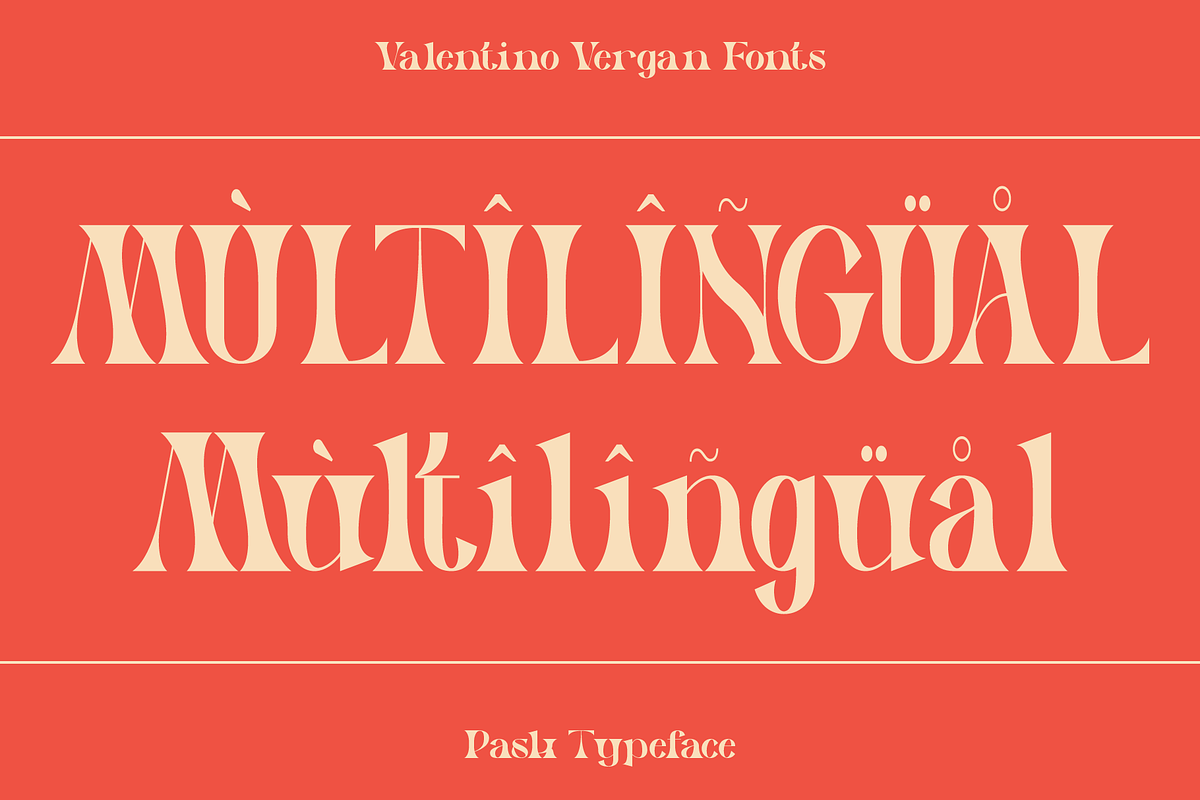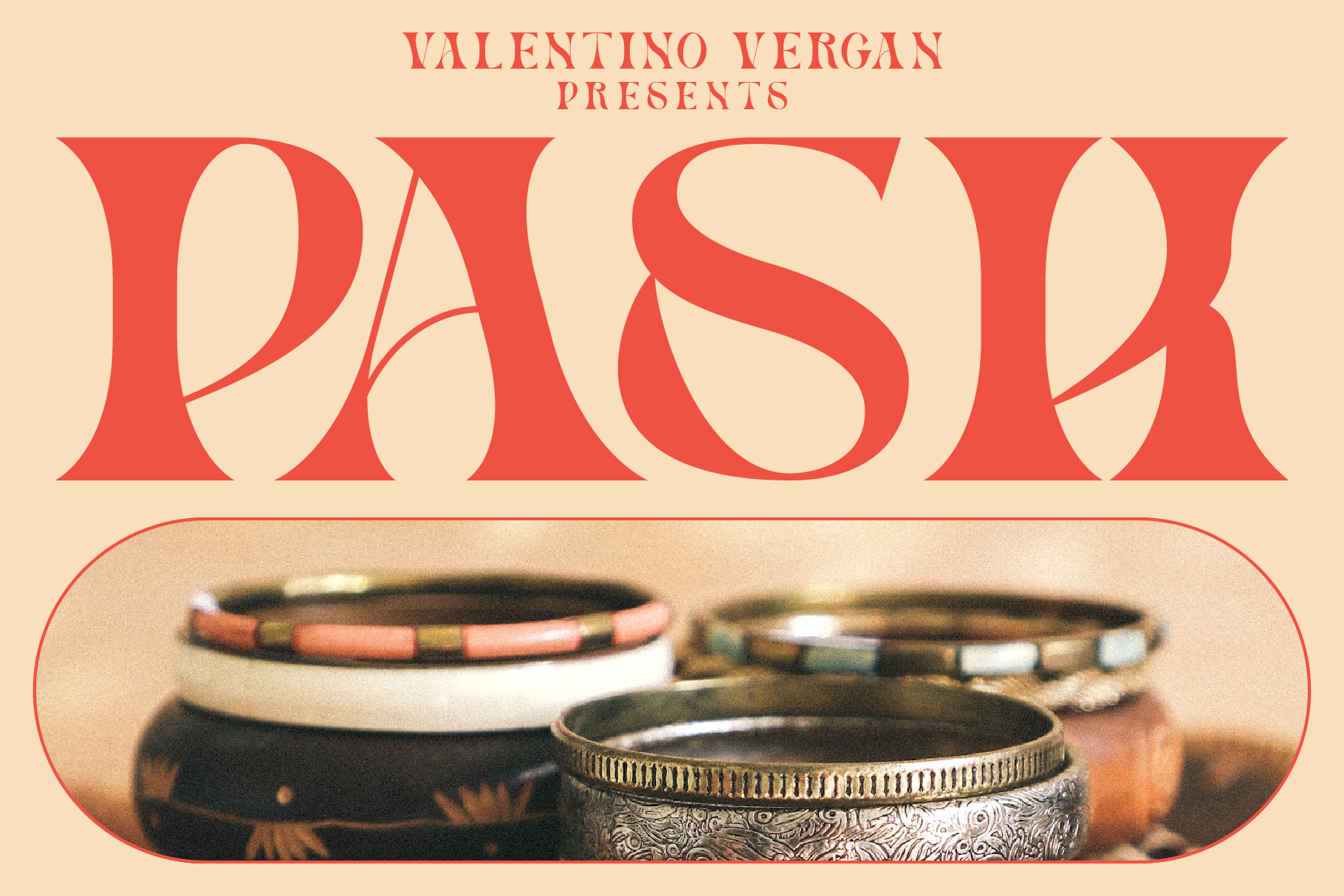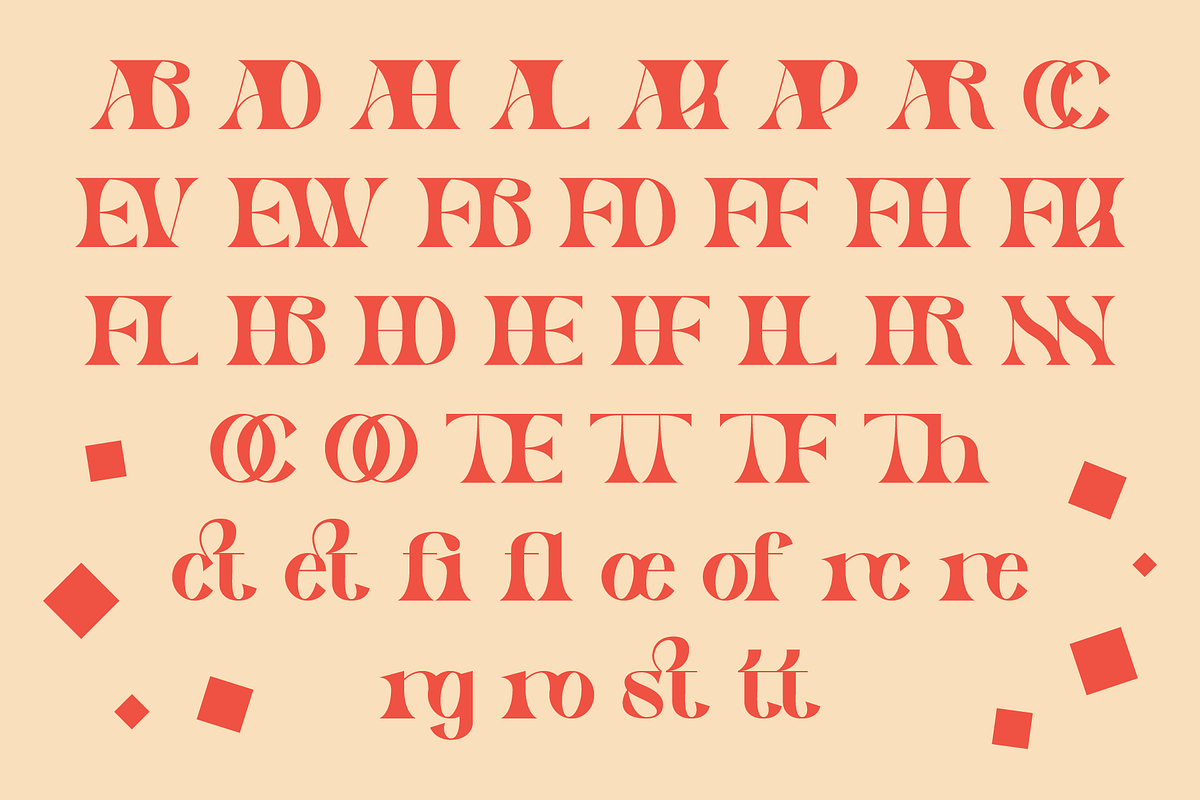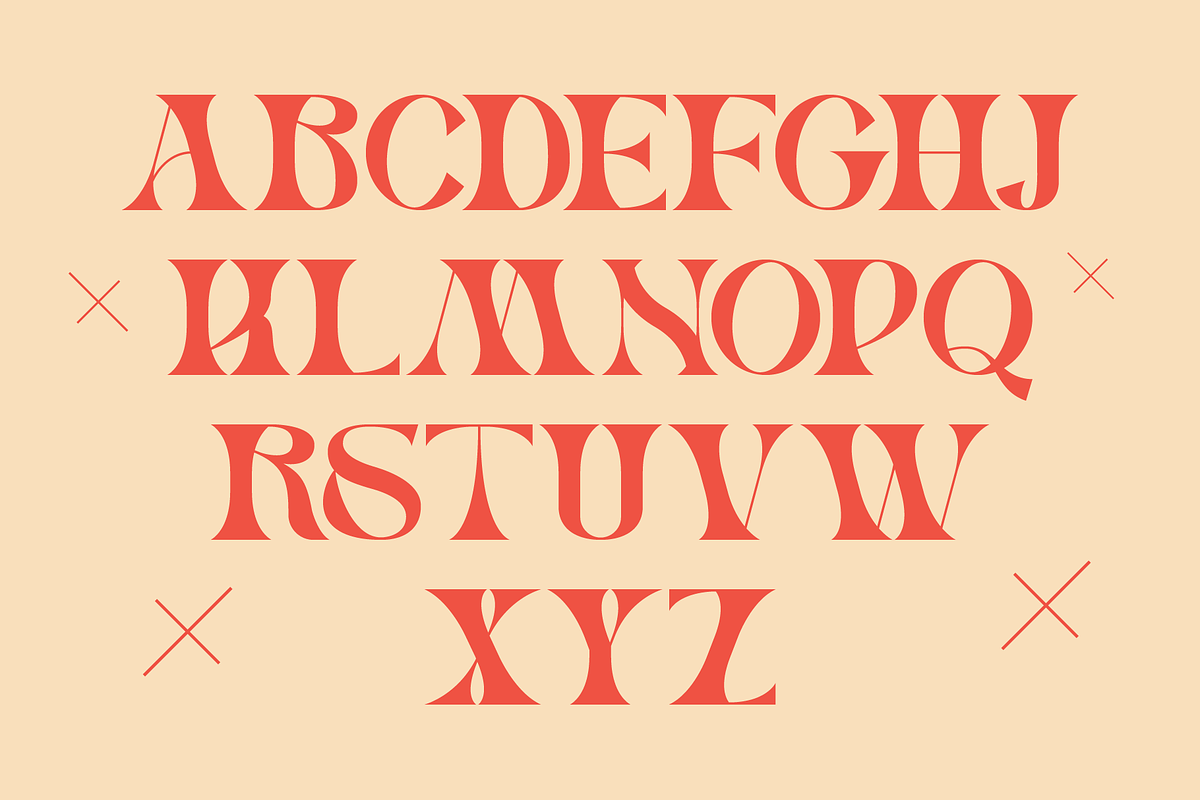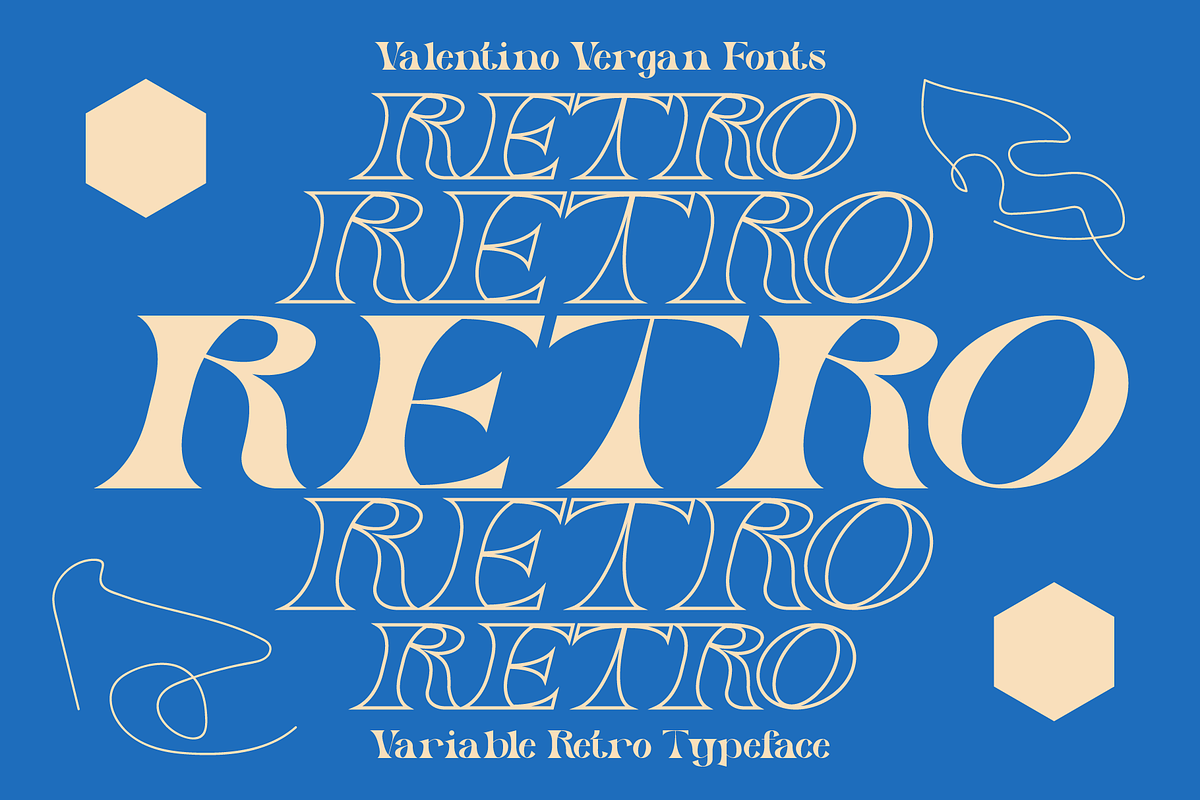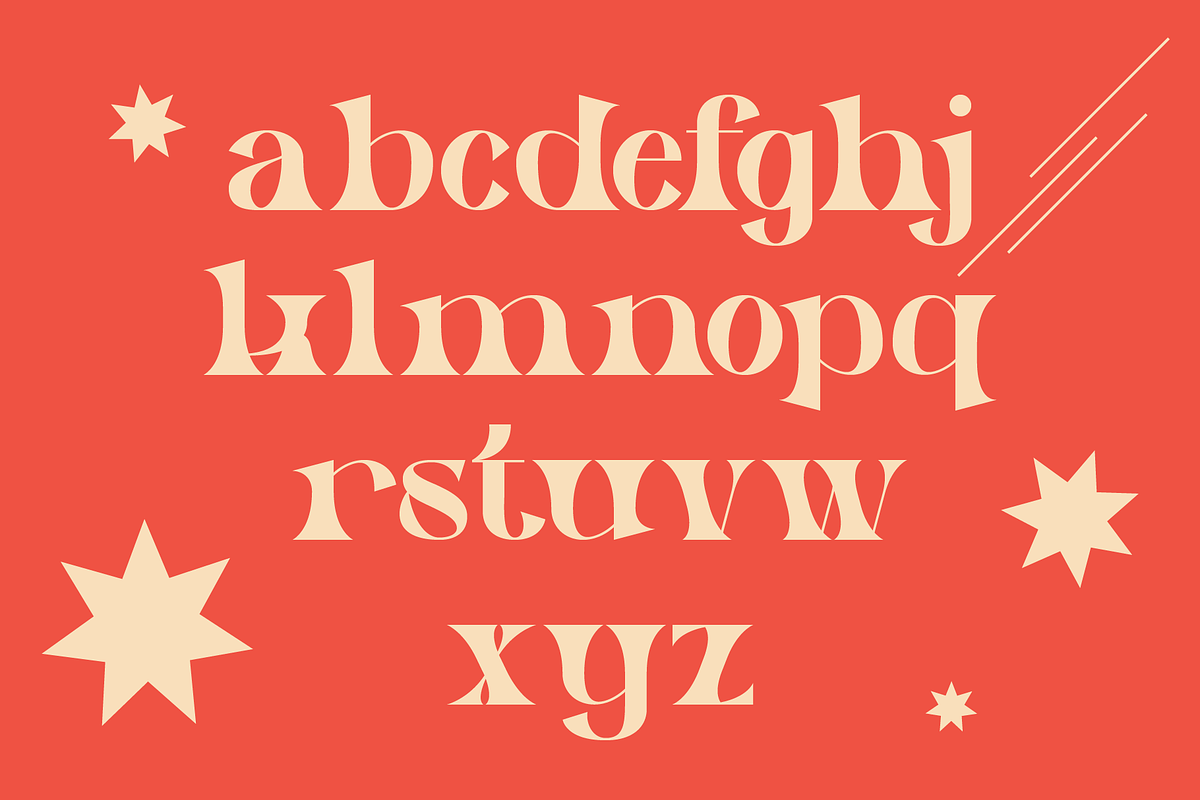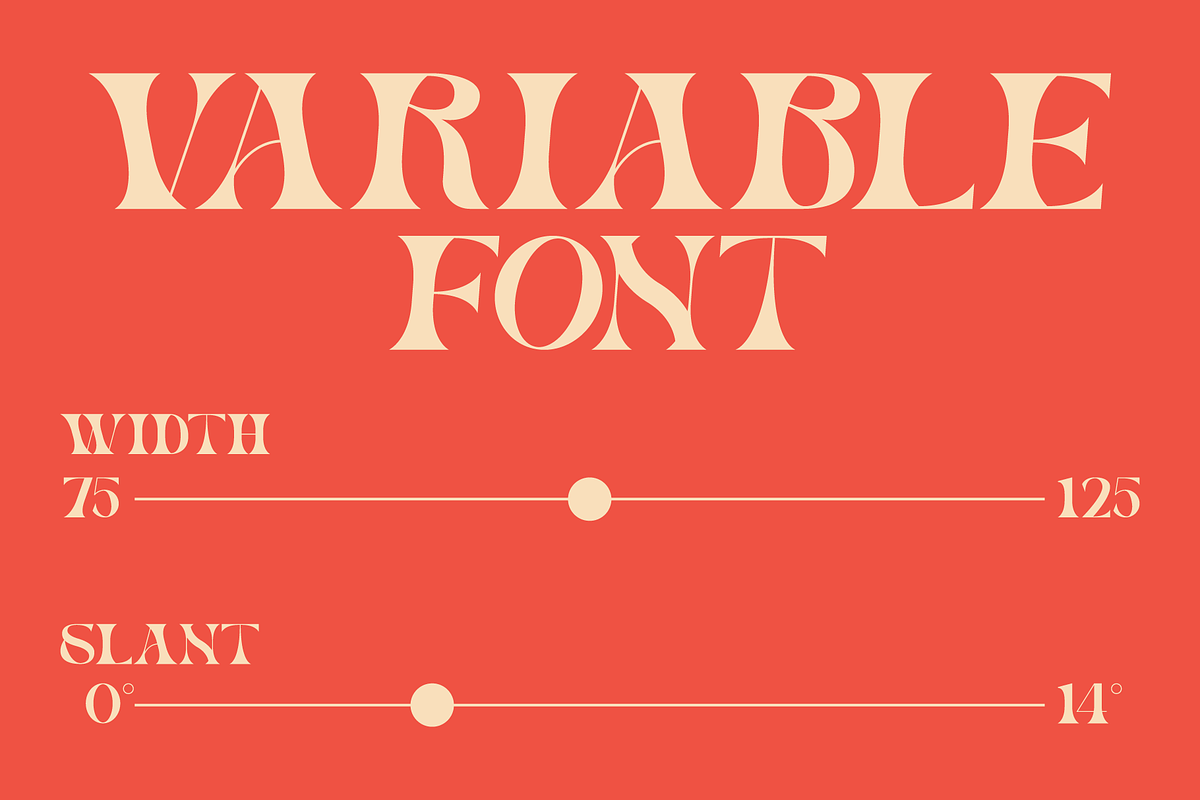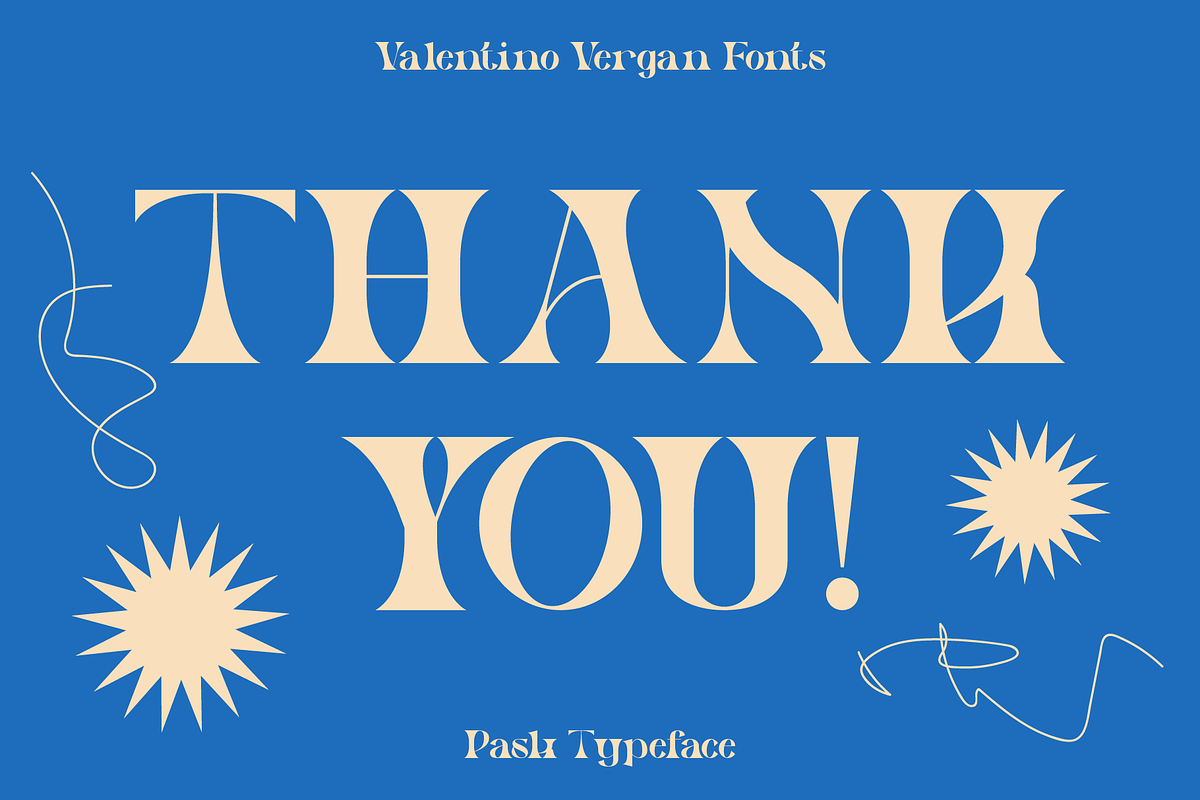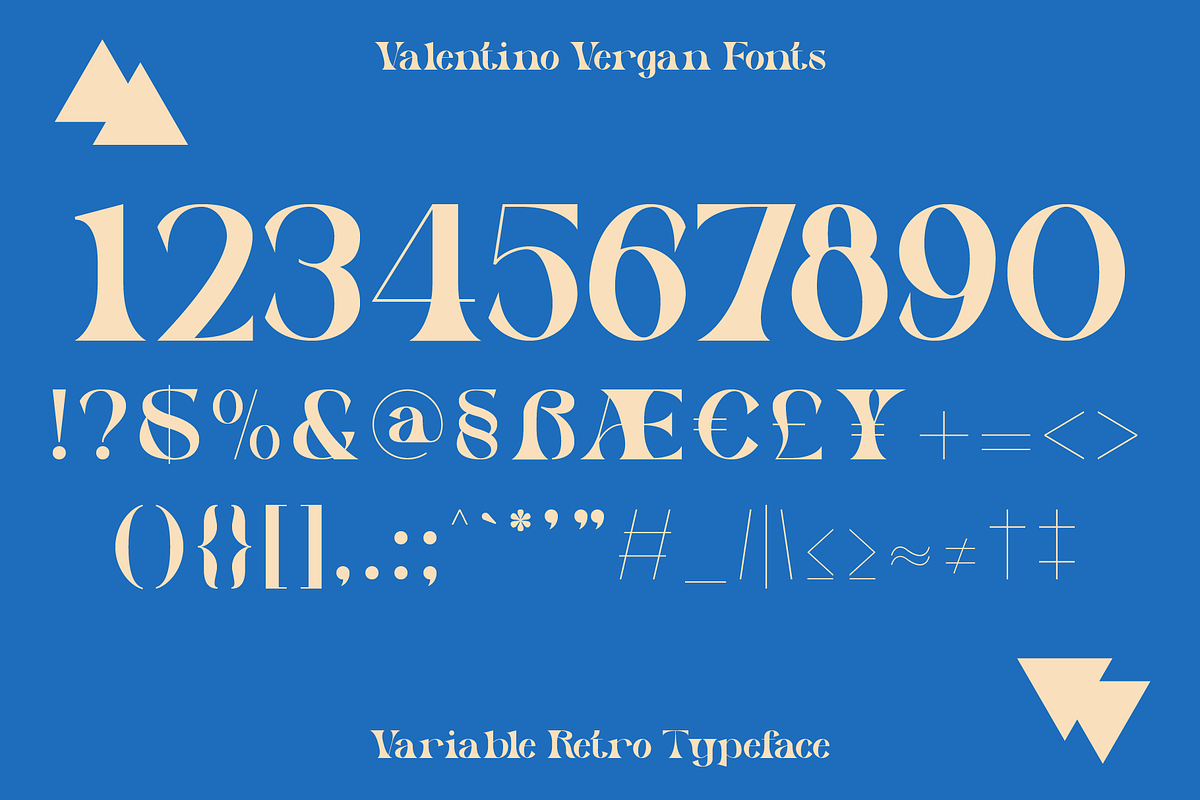
Pask - Variable Retro Font Family
Pask is a vibrant variable retro font family that channels the bold spirit of the ‘70s and ‘80s with a fresh, contemporary twist. Featuring chunky letterforms, rounded edges, and playful curves, Pask is built to make a statement—perfect for brands, posters, packaging, and digital design that craves character.
Thanks to its variable font functionality, Pask offers full control over weight, allowing you to dial in just the right amount of attitude—from smooth and groovy to loud and powerful.
Whether you’re crafting vintage-inspired branding, standout social content, or bold editorial layouts, Pask brings retro flair with modern adaptability.
Turn up the volume on your design. Make it bold, make it retro, make it unforgettable with Pask.